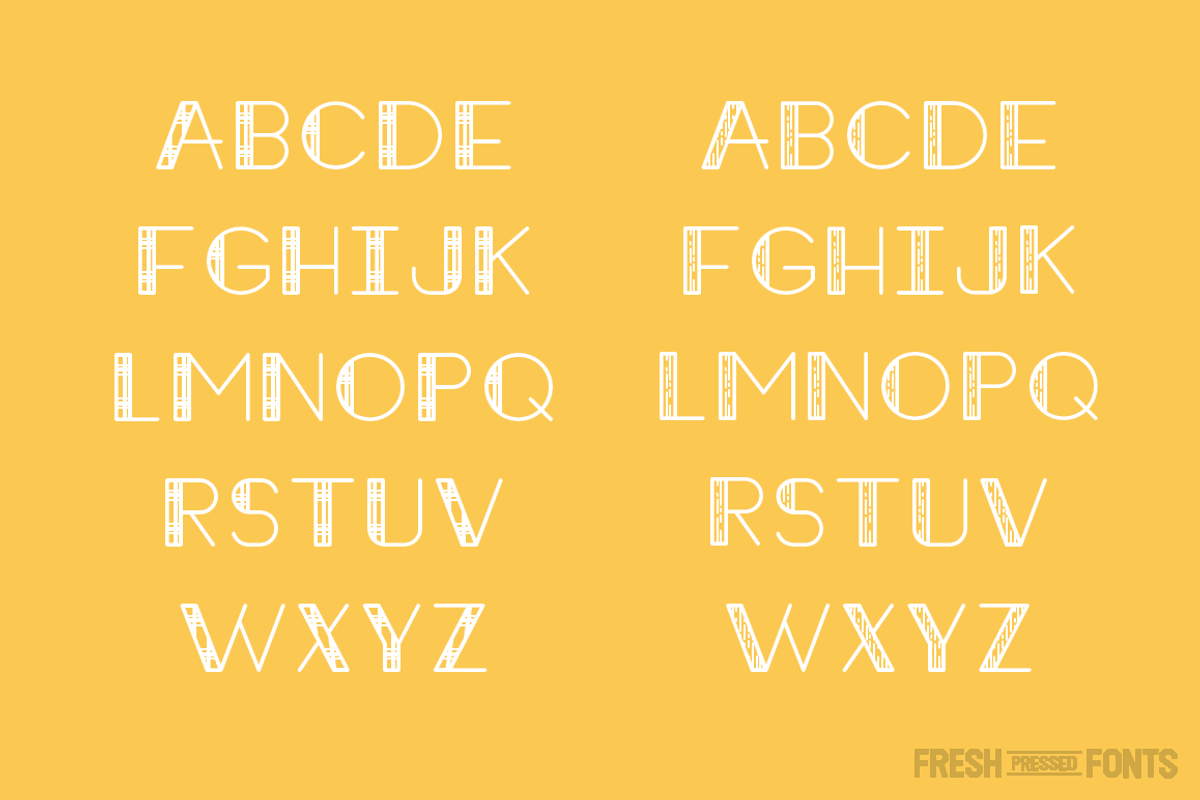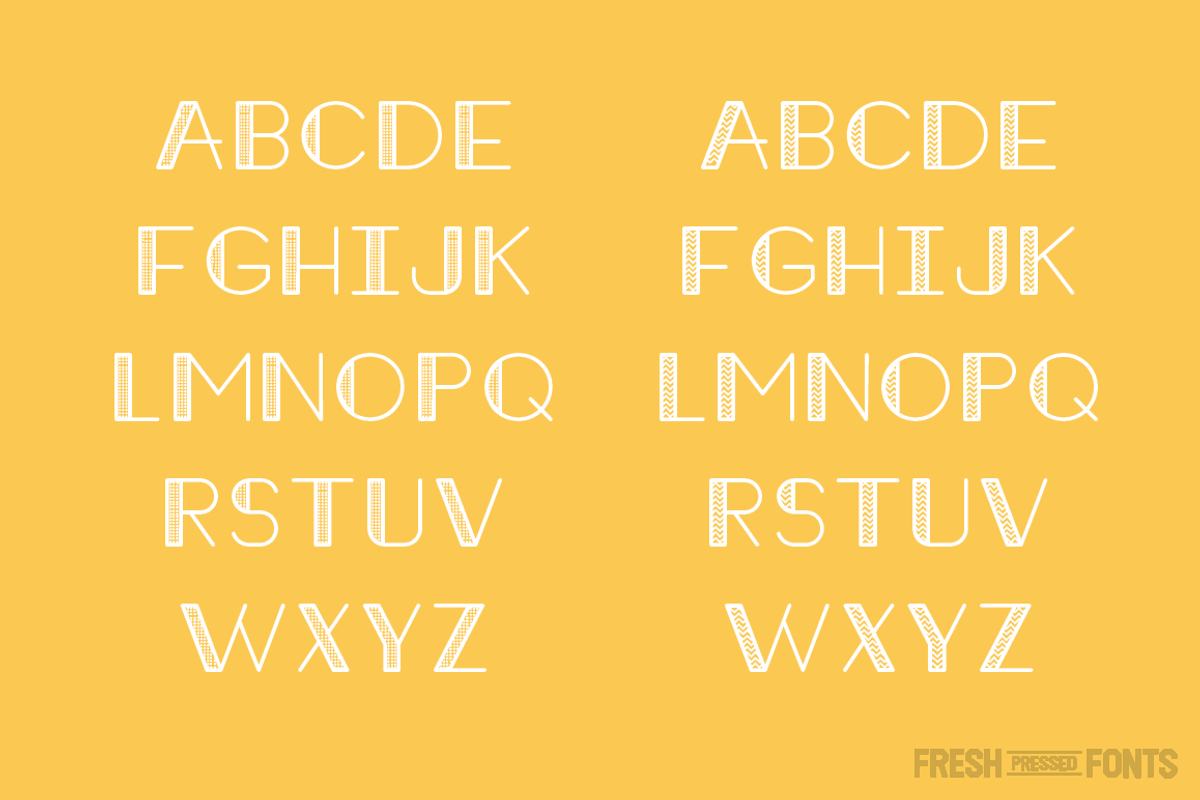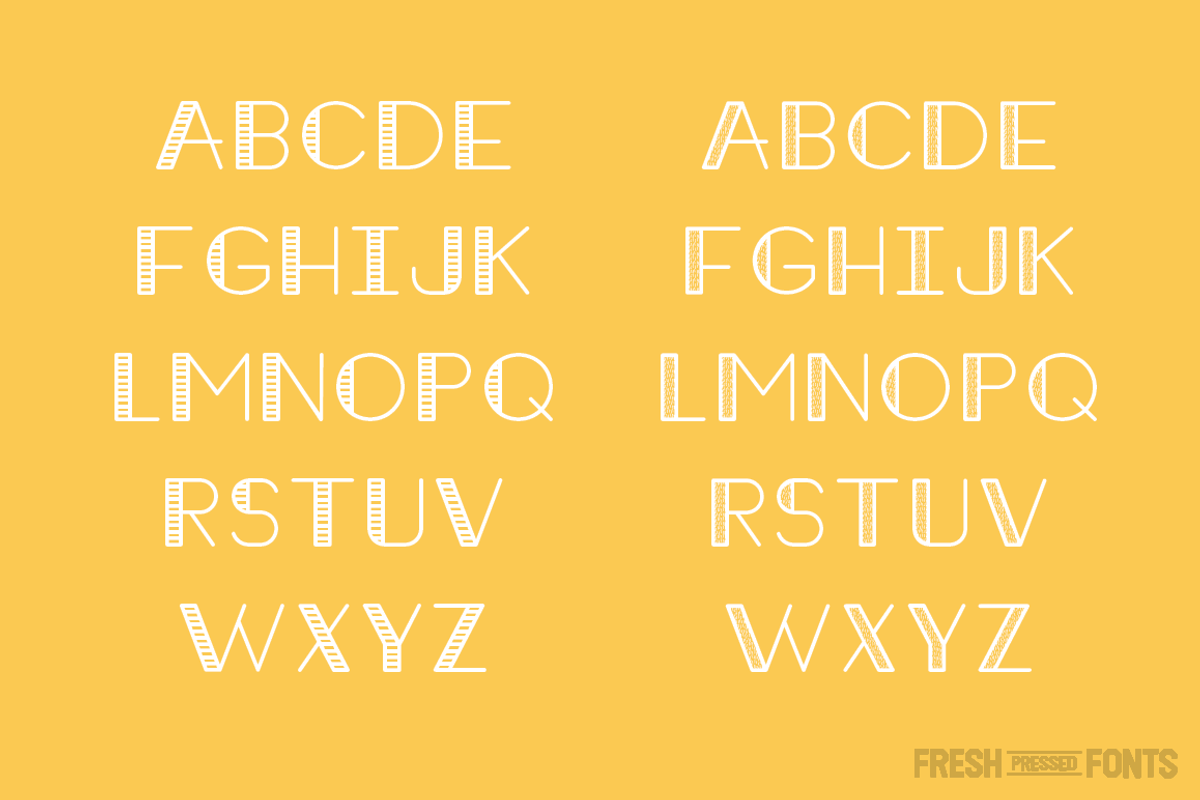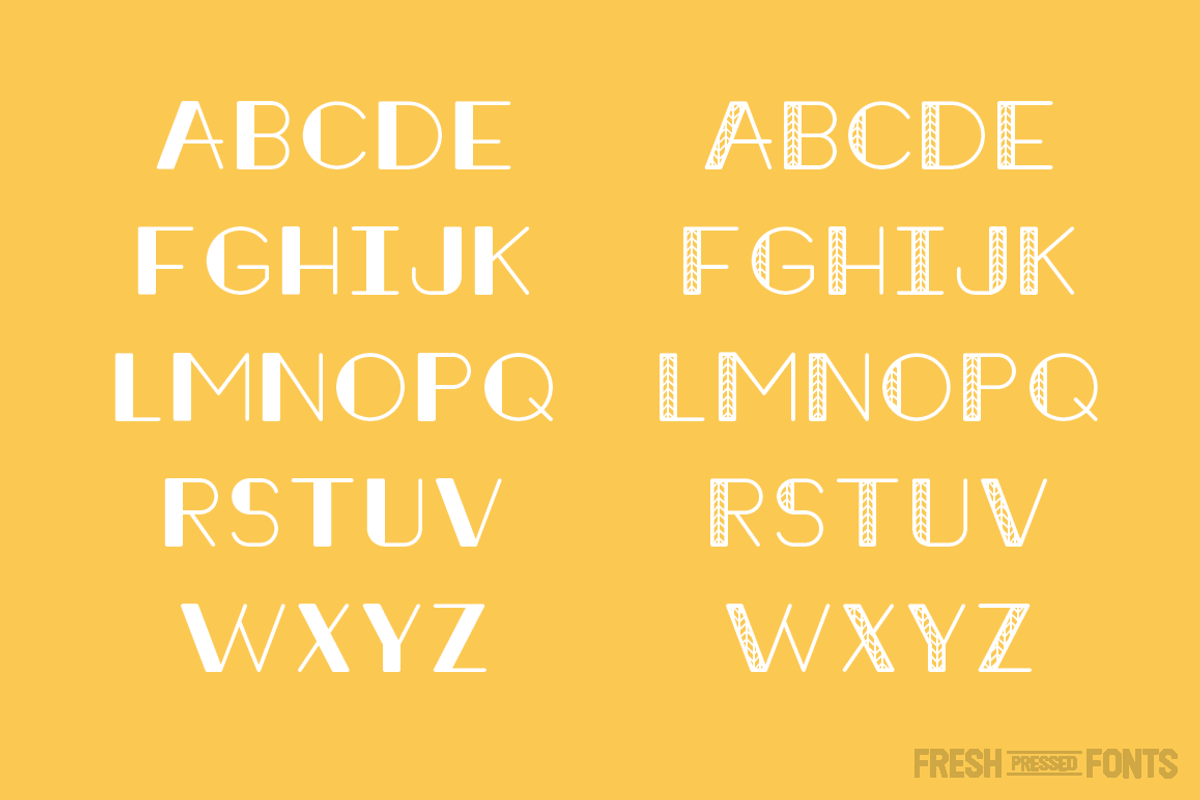
Octomorf Font
Octomorf Font by Fresh Pressed Fonts is a font selected for branding, posters, packaging, typography.
- Octomorf Blocky
- Octomorf Flannel
- Octomorf Ivy
- Octomorf Plank
- Octomorf Pointilism
- Octomorf Radical
- Octomorf Tempered
- Octomorf Wooly
Octomorf Font by Fresh Pressed Fonts fits naturally into Branding, posters, packaging, typography.